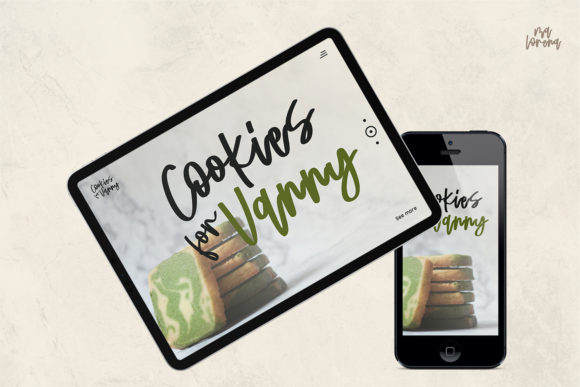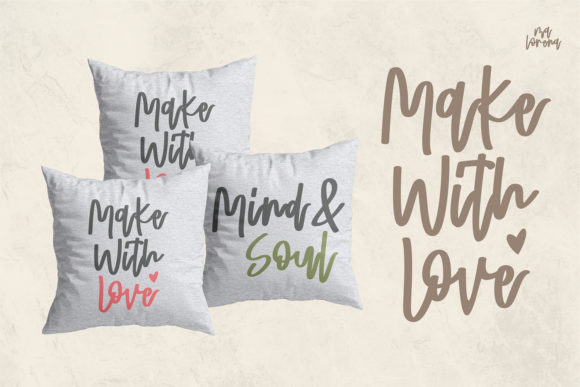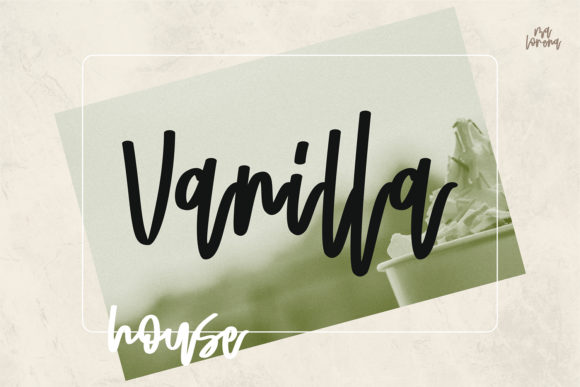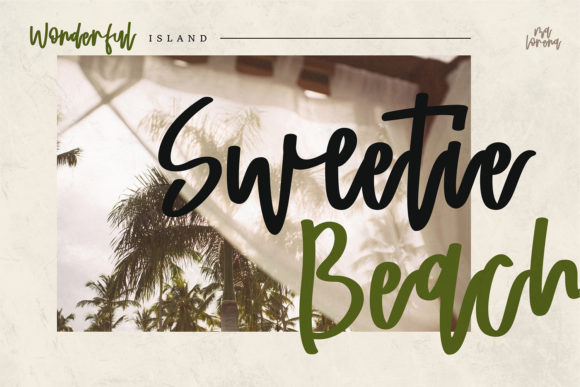
Ma Lorena Font
About Ma Lorena Font
Ma Lorena is a relaxed handwritten font, described by an elegant touch, perfect for your favorite projects. Fall in love with its incredibly distinct and timeless style and use it to create spectacular designs!